Mid-century modern fonts are distinguished by their plainness and evenness; other variations even underline more boldness and experimentation that often complement with vibrant color palettes and organic shapes. Our fonts provide those qualities and enhance your design with their uniqueness.
Key Takeaway:
- Mid-century fonts’ appeal is their loyalty to geometry and simplicity
- Mid-century fonts’ notable thickness and modern originality will be unforgettable if used on your designs
25 Mid-Century with Modern Vibes for Your Original Designs
What is a good mid-century modern font? Busche, a professional brand strategist, implies that the mid-century fonts’ cleanliness and symmetry remain popular despite the numerous creative creations of modern fonts.
However, one must introduce new things to gain the audience’s attention. So, below is the list of our mid-century fonts with a twist of modernity.
1. Kasely Classy Luxury Sans Font
Kasely’s slim arms and straight axis are a match in heaven. The font’s high contrast is also a marvellous depiction of luxury.
2. Kavora Display Sans Font
Kavora’s unification between the thin weight and modish letter shapes is compelling. The non-extravagant font can enliven the elegant vibe of your clothing logo designs.
3. Renamor Hybrid Sans Font
The togetherness of Renamor’s cursive letter forms and the well-proportioned ones deserves a chef’s kiss. Its neatness can increase both readability and personality.
4. Mencary A Old Typewriter Font
Mencary revives the tidiness of typewriter-style baseline and unchanging mediumweight. The font’s horizontal ears and serifs are included in the regular and rough versions.
5. Marceny Modern Display Sans Font
Marceny broadens your audience’s mind with its curled-tail descenders and free strokes. The font’s simplicity can be wonderful on your apparel-themed designs.
6. Mionar Vintage Bold Sans Font
Mionar makes your audience wonder and smitten because of the font’s atypical letter shapes and dynamic thickness.
7. Brinema Bold Condensed Sans Font
Brinema goes beyond expectations as one of the mid-century modern fonts with the font’s steady boldness and unornamented alternates.
8. Bendagi Modern Sans Font
Bendagi embraces the passion of one’s exercising journey through the font’s sporty letter forms and consistent mediumweight.
9. Recady Modern Sans Font
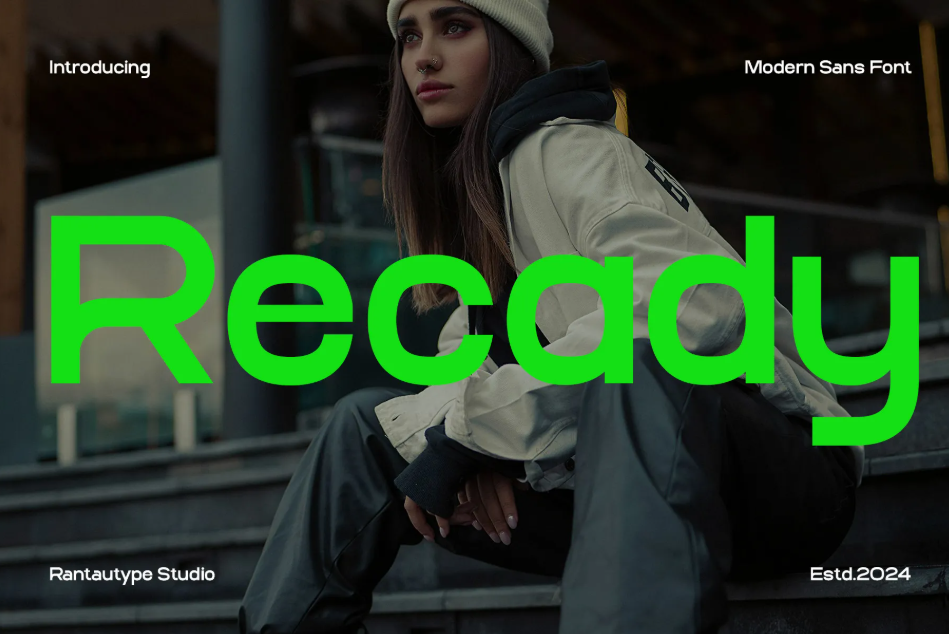
Recady dares to be different with its attractive plainness and draws you in with the font’s gorgeous, geometrical lines.
10. Muntea Fun Sans Font
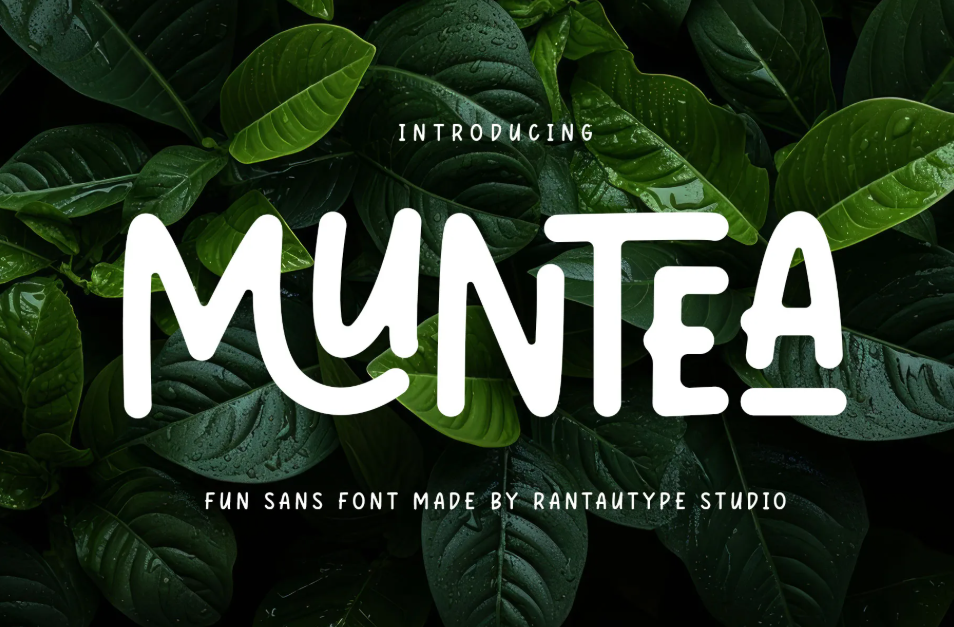
Muntea’s delightful charm is not only stable and bold, but also features the curvy terminals and bouncy alternates. You can also use the font’s refreshing alternates.
11. Pageson Bold Condensed Font
Your audience’s attention can be centered on Pageson if used on your design’s titles because of the font’s heavyweight and stylish letter forms.
12. Remodia Experimental Sans Font
Remodia accompanies you in your creative endeavor through the font’s combination of versatile letter shapes and neat lines.
13. Keyona Experimental Sans Font
Keyona’s cursive strokes and less sophisticated ones are a good pairing to represent your free-spirited identity in branding projects.
14. Cerdion Futuristic Font
Cerdion manifests a powerful presence of futurism through its tech-vibe letter forms and sharp edges.
15. Mooner Modern Futuristic Font
Mooner ranks as one of the top 25 mid-century modern fonts because of its revolutionary alternates and ultramodern letter shapes.
16. Gonce Minimalist Sans Typeface
Gonce is a rare treasure of geometrical fonts. The baseline is traditional, which complements the minimalistic appearance and classy neatness.
17. Helony Experimental Unique Sans Font
Helony’s cursive and simple strokes are harmonizing. Increase the legibility of your design without eliminating its appeal with this hybrid font.
18. Galmond Modern Futuristic Font
Galmond’s sharp edges and stiff lines evoke the high-technology vibe. Its square counters and unconventional alternates can arouse your audience’s curiosity, too.
19. Gendy Modern Sans Font
Gendy’s versatile yet minimalistic lines scream nothing but both elegance and trendiness. Use the chic font on your fashion-themed social media posts.
20. Gotens Bold Condensed Display Font
Gotens stands unafraid with its commanding boldness. Yet, the font’s narrow counters and additional strokes soften the appearance to be more subtle.
21. Perfect Girl A Font Duo
Each stroke of Perfect Girl is the embodiment of perfection with its delicate and high contrast, which is harmonious with the font’s handwritten letter shapes.
Other Mid-Century Fonts?
The inherent trait of mid-century modern fonts is their consistency with geometrical and plain lines. However, angular and round edges can be one of the attractive features. In addition to that, combining them with handcrafted strokes and fashionable letter shapes can resonate more modernity in your design.If you are looking for different styles, explore other styles of mid-century font collections in Rantautype Studio. Choose the font that speaks more for you and craft the revolutionary typography for your dashing and enduring designs.